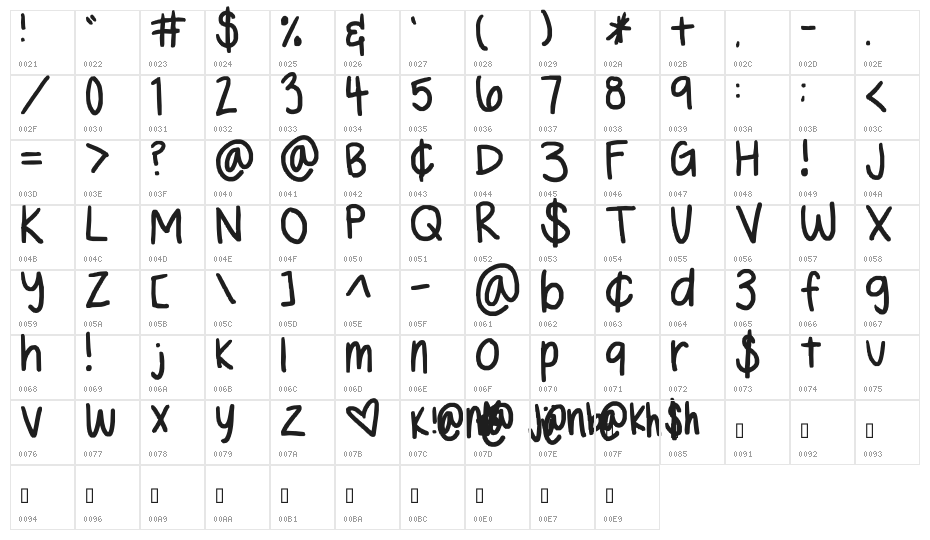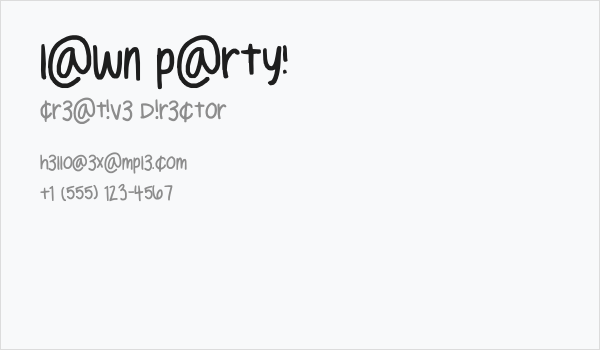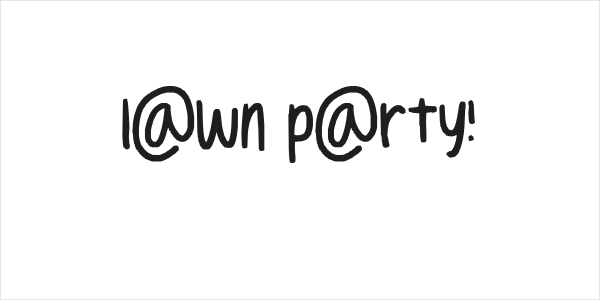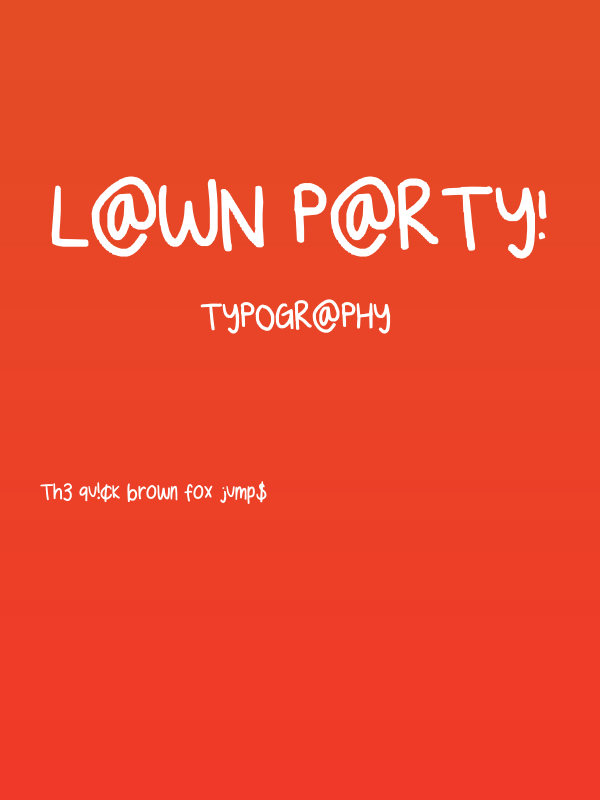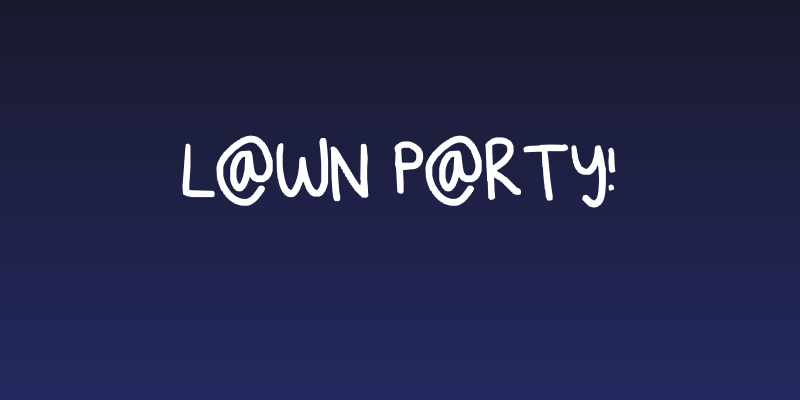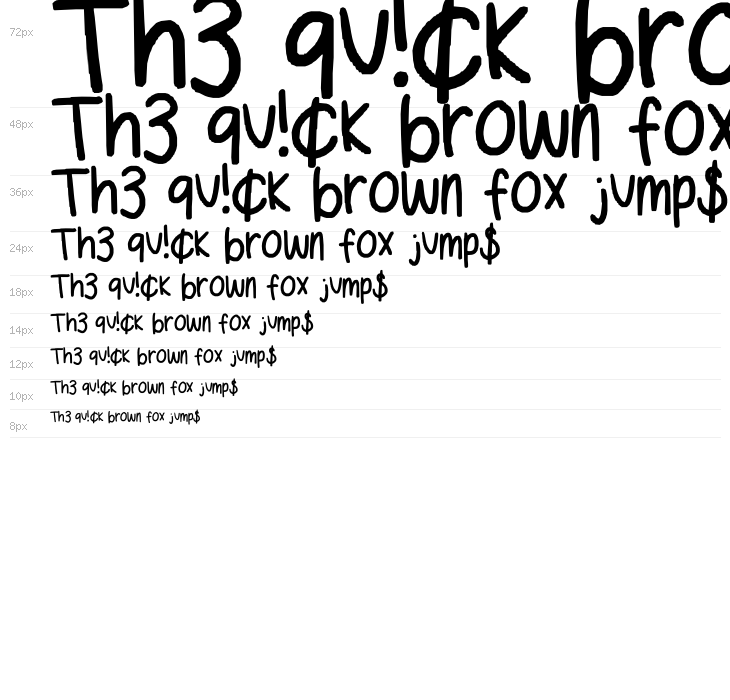
lawn party! Font
lawn party! Description
This playful and casual font features a handwritten style with a lively and informal appearance. The characters are bold and rounded, giving off a friendly and approachable vibe. The uppercase and lowercase letters maintain a consistent flow, with slightly irregular strokes that add to the hand-drawn charm. The numbers and special characters are equally whimsical, enhancing the overall playful aesthetic. This font is perfect for projects that require a personal touch, such as invitations, greeting cards, or children's book covers.
| Use Case | Headlines, Casual text, Invitations |
| Proposed Projects | Ideal for invitations, greeting cards, children's books, and casual branding. |